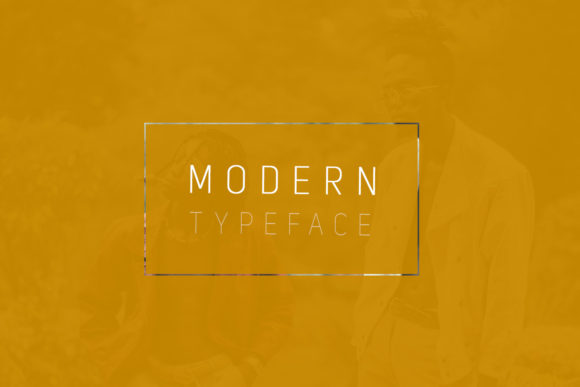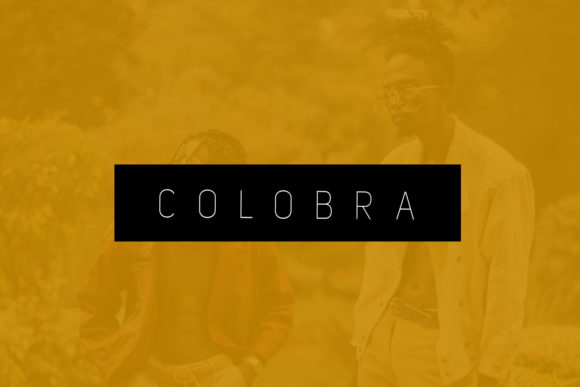
Introducing Equipie Font: The Ultimate Sans Serif for Modern Designs
Equipie Font is a stunning, thin-lettered, and clean sans serif font that has been making waves in the design community. Its sleek and modern aesthetic makes it an ideal choice for a wide range of projects, from branding and advertising to crafting and DIY endeavors. In this article, we’ll dive into the world of Equipie Font, exploring its features, benefits, and uses, and discover why it’s becoming a favorite among designers and crafters alike.
What is Equipie Font?
Equipie Font is a carefully crafted, sans serif font that boasts a unique blend of elegance and simplicity. Its thin letters and clean lines create a sense of sophistication and refinement, making it perfect for designs that require a touch of modernity. Whether you’re working on a logo, brochure, or social media graphics, Equipie Font is sure to make your project stand out from the crowd.
Key Features of Equipie Font
- Thin Lettering: Equipie Font features delicate, thin letters that exude a sense of elegance and refinement.
- Clean Sans Serif: The font’s clean lines and sans serif design make it perfect for modern designs that require a touch of sophistication.
- Versatility: Equipie Font can be used for a wide range of projects, from branding and advertising to crafting and DIY endeavors.
- Ease of Use: The font is easy to read and works well in various sizes, making it perfect for both digital and print applications.
Benefits of Using Equipie Font
So, why should you choose Equipie Font for your next project? Here are just a few benefits of using this amazing font:
- Unique and Modern Aesthetic: Equipie Font’s sleek and modern design will instantly elevate your project and make it stand out from the competition.
- Improved Readability: The font’s clean lines and thin letters make it easy to read, even at small sizes.
- Flexibility: Equipie Font can be used for a wide range of projects, from logos and branding to social media graphics and more.
- Time-Saving: With Equipie Font, you can create stunning designs in no time, thanks to its ease of use and versatility.
Uses of Equipie Font
Equipie Font is an incredibly versatile font that can be used for a wide range of projects, including:
- Branding and Advertising: Use Equipie Font to create stunning logos, brochures, and social media graphics that will help your brand stand out.
- Crafting and DIY: Equipie Font is perfect for crafters and DIY enthusiasts who want to add a touch of modernity to their projects.
- Graphic Design: The font is ideal for graphic designers who want to create stunning visual content, from infographics to social media graphics.
- Web Design: Equipie Font can be used for web design projects, including website headers, navigation menus, and more.
Tips for Using Equipie Font
Here are a few tips for getting the most out of Equipie Font:
- Experiment with Sizes: Equipie Font works well in various sizes, so don’t be afraid to experiment and find the perfect size for your project.
- Pair with Other Fonts: Equipie Font pairs well with other fonts, so try combining it with other fonts to create a unique and interesting design.
- Use for Headings and Titles: Equipie Font is perfect for headings and titles, thanks to its bold and eye-catching design.
In conclusion, Equipie Font is a stunning, thin-lettered, and clean sans serif font that is perfect for modern designs. Its versatility, ease of use, and unique aesthetic make it an ideal choice for designers and crafters alike. Whether you’re working on a branding project, crafting a DIY project, or creating visual content, Equipie Font is sure to make your project stand out from the crowd. So why wait? Give Equipie Font a try today and discover the difference it can make in your designs!